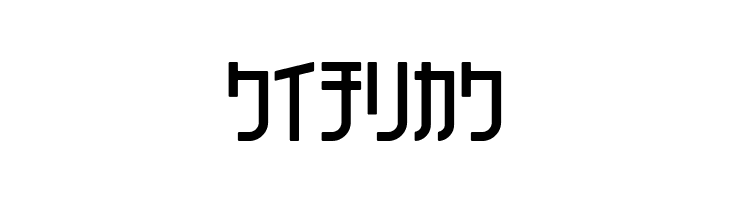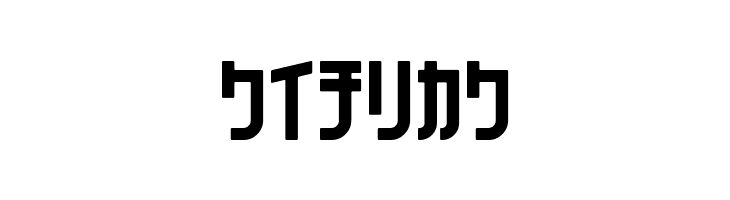
• 01FontremixType38
A creative and eclectic display typeface with diverse, artistic character designs.
• 02FontremixType36
A decorative and eclectic font with unique, artistic characters and symbols.
• 071MKSDBoldA
A bold, geometric font with a strong, modern presence.
• 071MKSDBoldB
A bold, modern font with a geometric structure and uniform thickness.
• 071MKSDKTBold
A bold, geometric font with a modern and structured appearance.
• 071MKSDKTMedium
A bold, geometric font with a modern and structured design.
• 071MKSDMediumA
A modern, clean sans-serif font with uniform strokes and a slightly condensed form.
• 071MKSDMediumB
A modern, clean sans-serif font with uniform strokes and slightly condensed proportions.
• 078MKSDMediumCondensed
A modern, geometric sans-serif font with a condensed width and uniform stroke.
• 096MKSDSynapseAl
A modern, geometric font with a futuristic aesthetic and uniform stroke width.